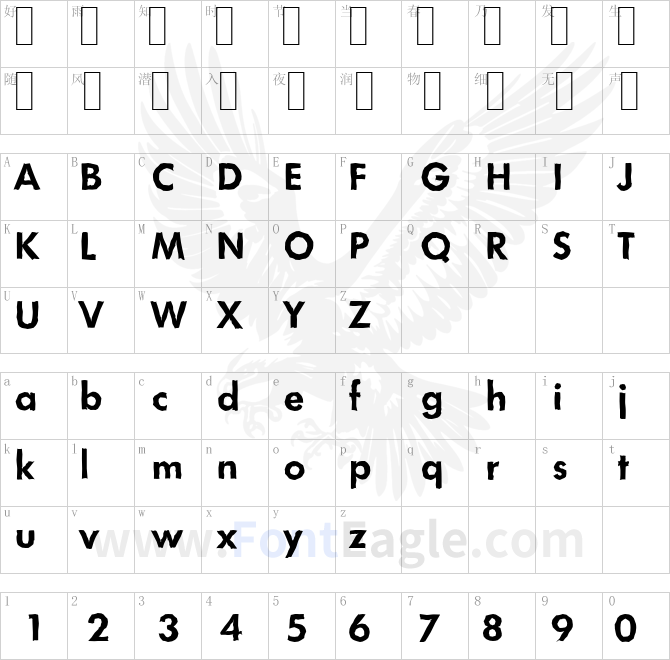
- Font name:LimerickAntique
- Font Subfamily ID:SoftMaker Software GmbH LimerickAntique-Bold
- Font Full Name:LimerickAntique-Bold
- Postscript:LimerickAntiqueBold